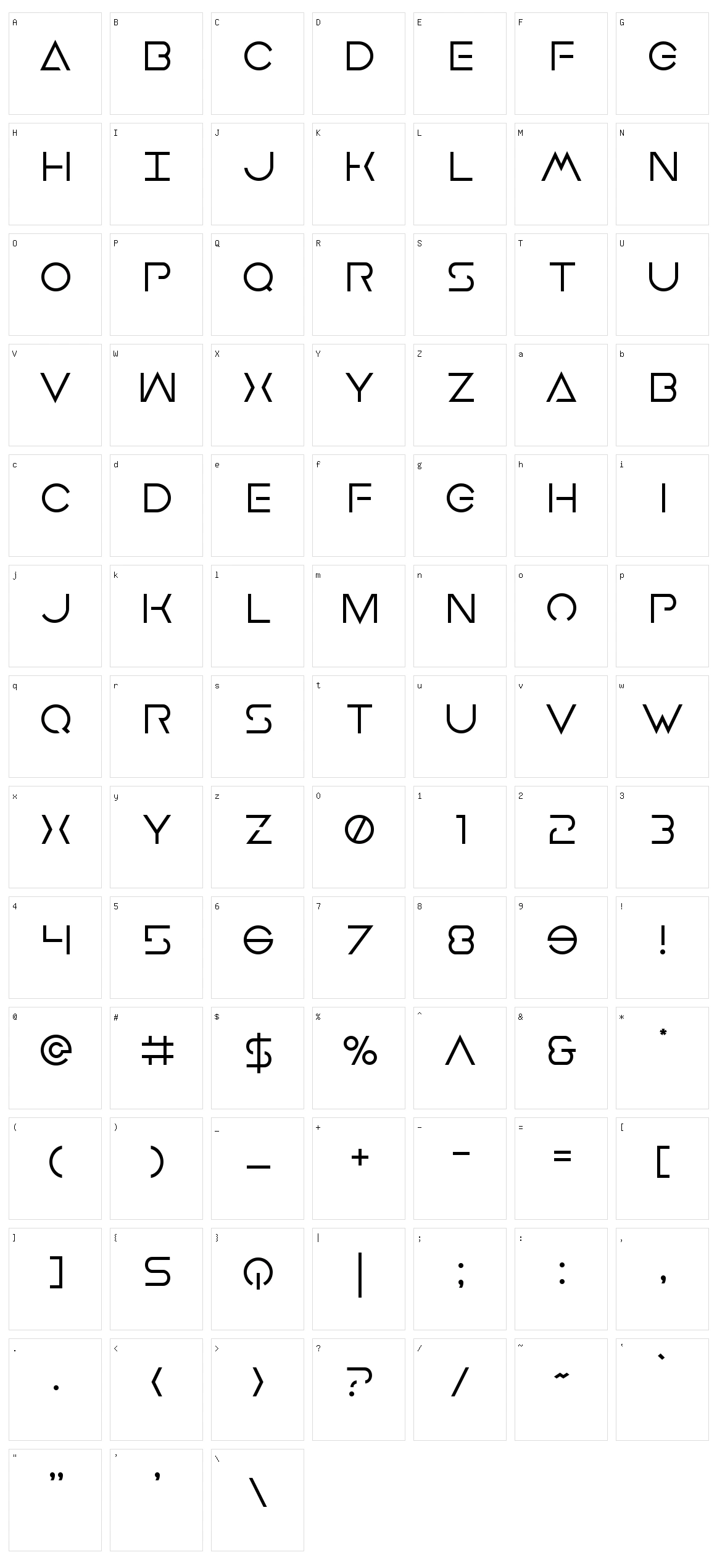
Earth Orbiter
This font comes with the following 33 versions: Regular, Italic, Semi-Italic, Super-Italic, Leftalic, Condensed, Condensed Italic, Expanded, Expanded Italic, Bold, Bold Italic, Extra-Bold, Extra-Bold Italic, 3D, 3D Italic, Outline, Outline Italic, Deep 3D, Deep 3D Italic, Gradient, Gradient Italic, Halftone, Halftone Italic, Laser, Laser Italic, Title, Title Ita;ic, Academy, Acadmey Italic, Punch, Punch Italic, Engraved and Engraved Italic.